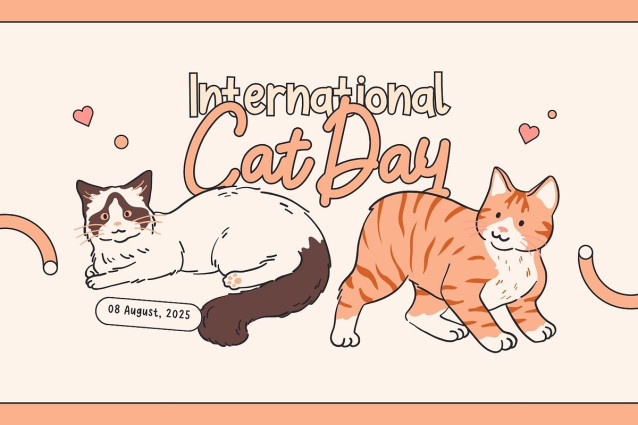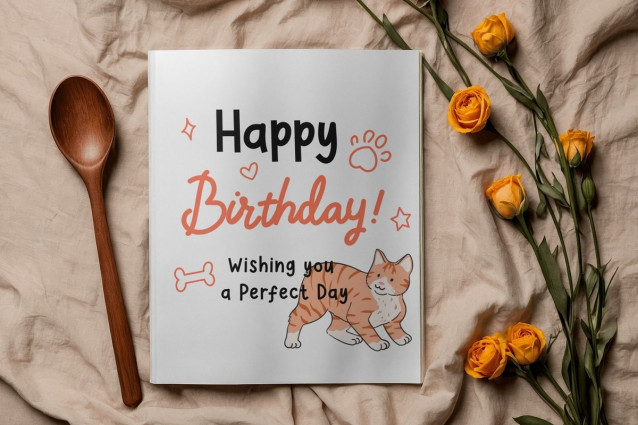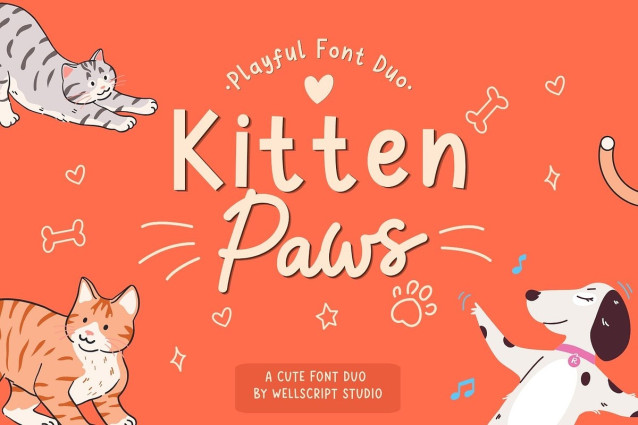
Kitten Paws Font
Kitten Paws Font a cute and playful font duo designed to bring warmth, joy, and charm to your creative projects. With its soft handwritten style, sweet rounded letters, and lovely script look, this font is perfect for creating adorable and memorable designs.Kitten Paws is ideal for pet branding, kids products, packaging, stickers, greeting cards, invitations, social media posts, merchandise, handmade crafts, and many other cute design projects.